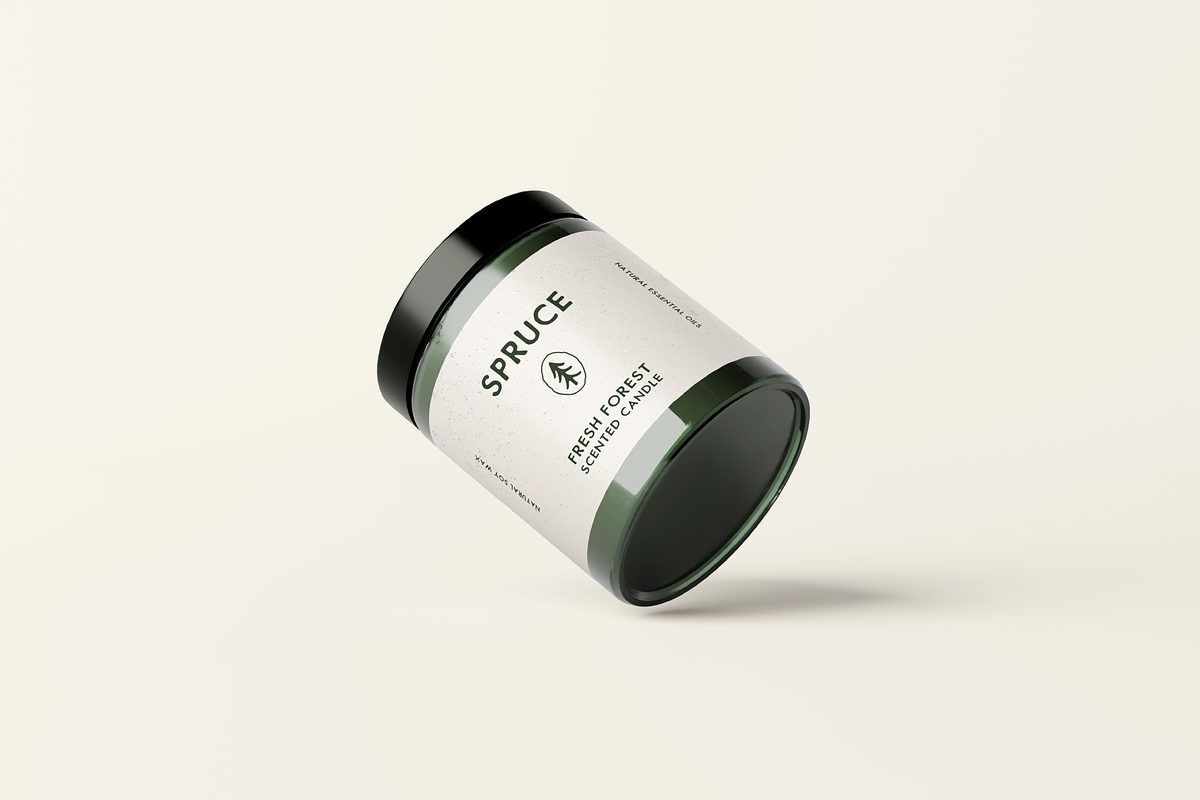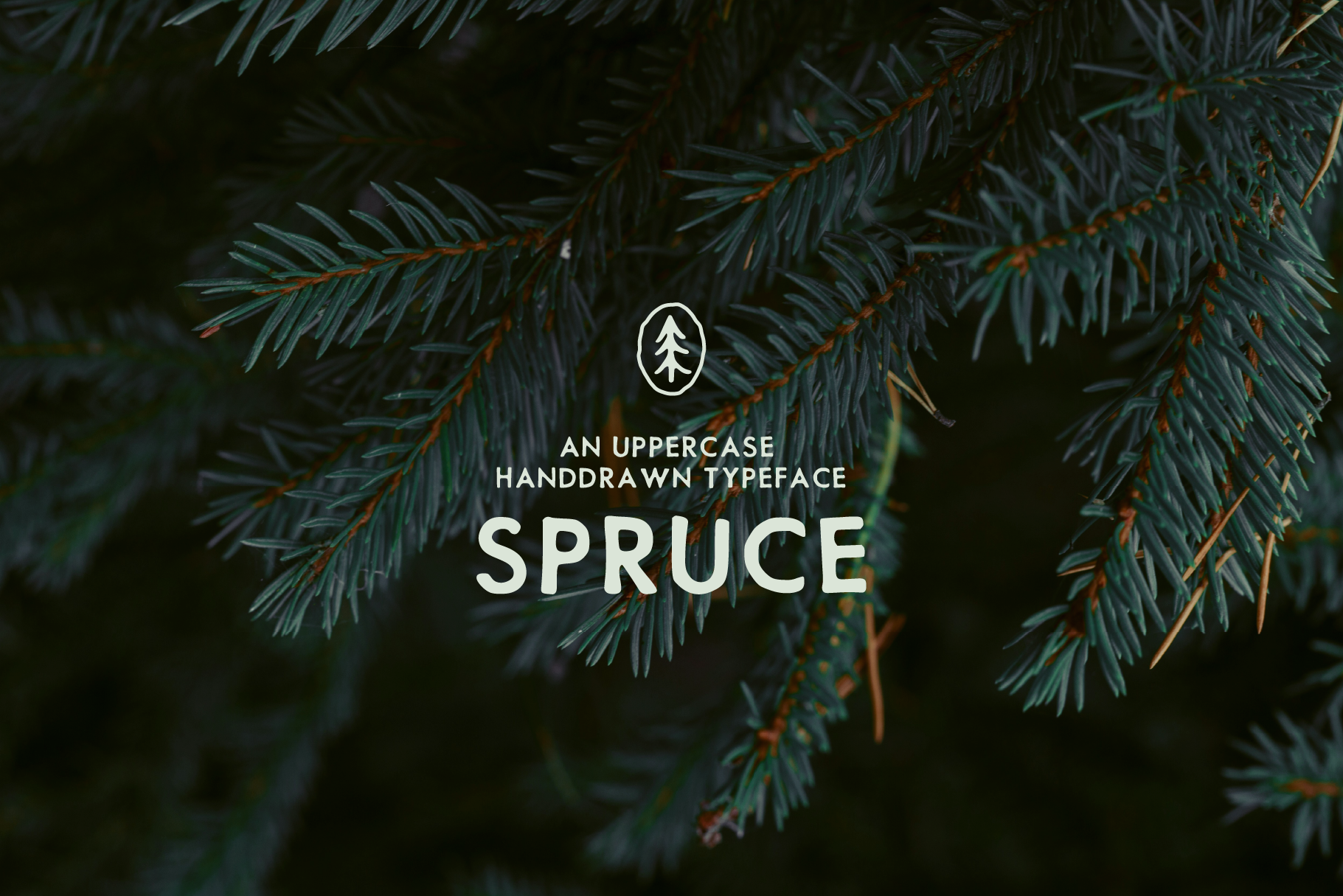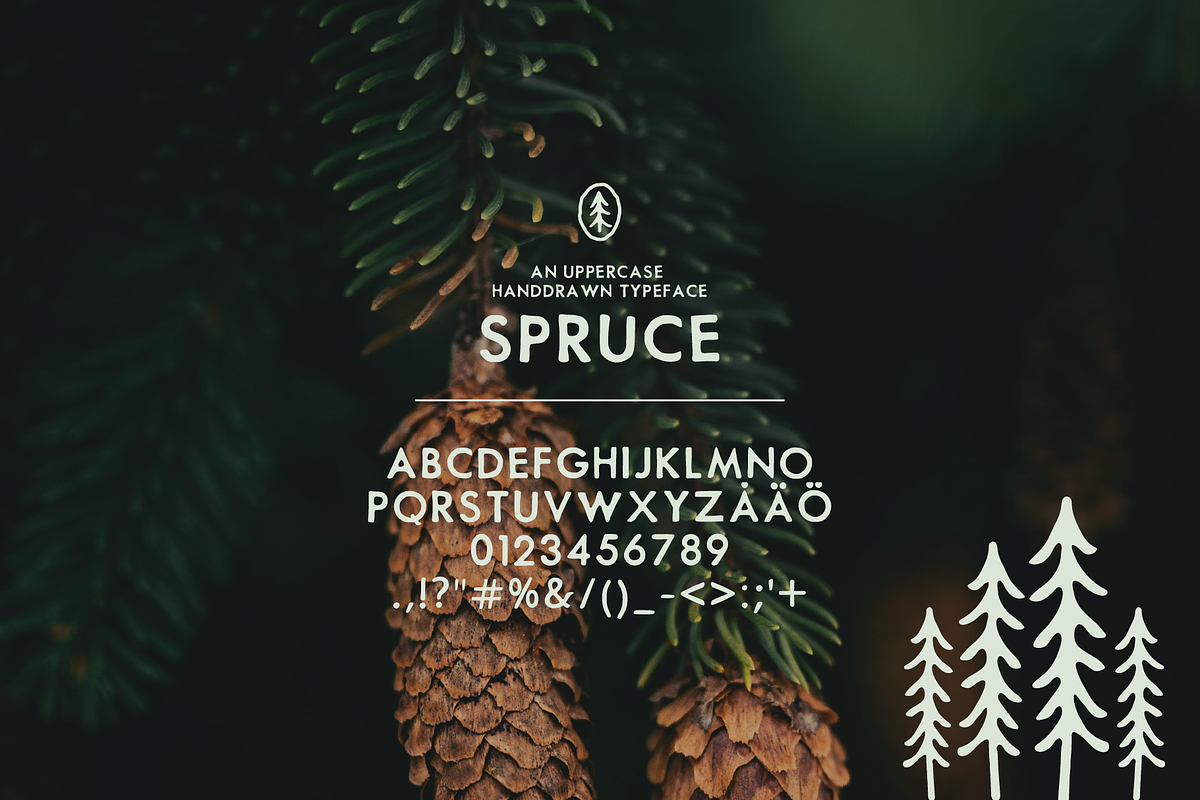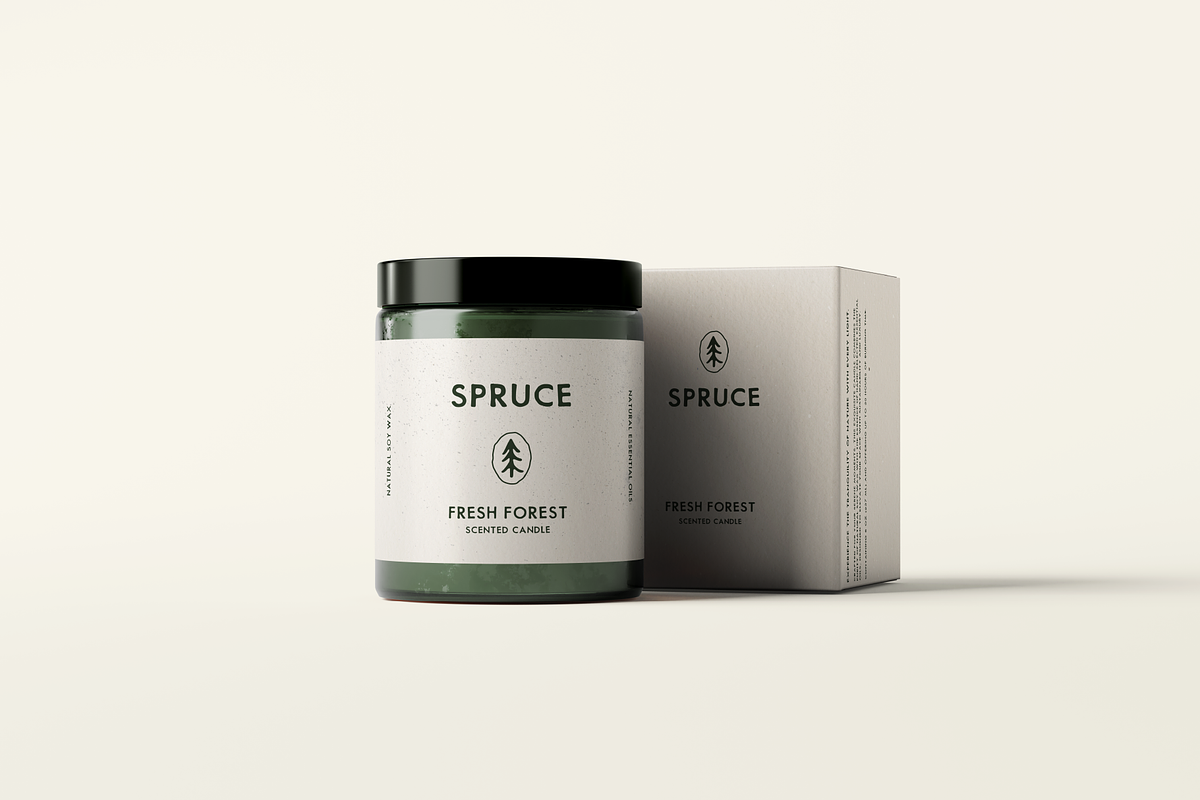
SPRUCE UPPERCASE TYPEFACE
"Spruce" is a naturally inspired, hand-drawn uppercase typeface that captures the essence of the outdoors with its unique and organic design. Crafted with care, each letter in the "Spruce" font family evokes the sturdiness and the timeless beauty of the spruce tree, making it perfect for projects that require a touch of nature's elegance. Its rugged yet refined style is ideal for branding, packaging, and creative works that aim to stand out with a distinctive, artisanal feel. Whether you're designing for eco-friendly brands, outdoor adventure themes, or artisanal products, "Spruce" offers a versatile and authentic typeface choice that brings a natural warmth to any project.